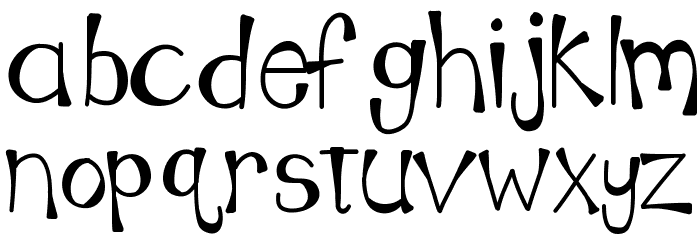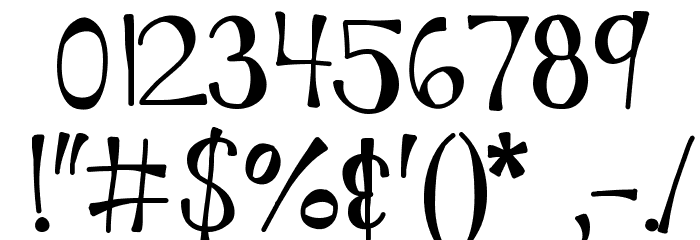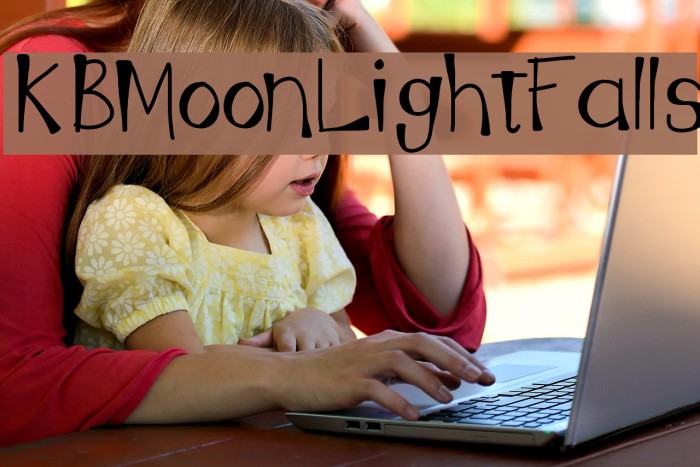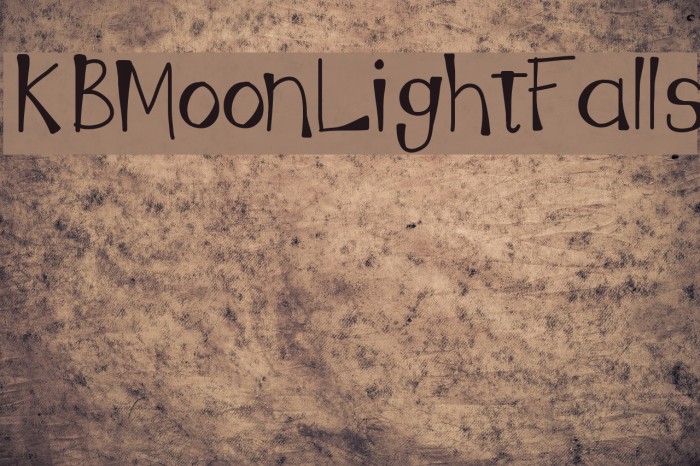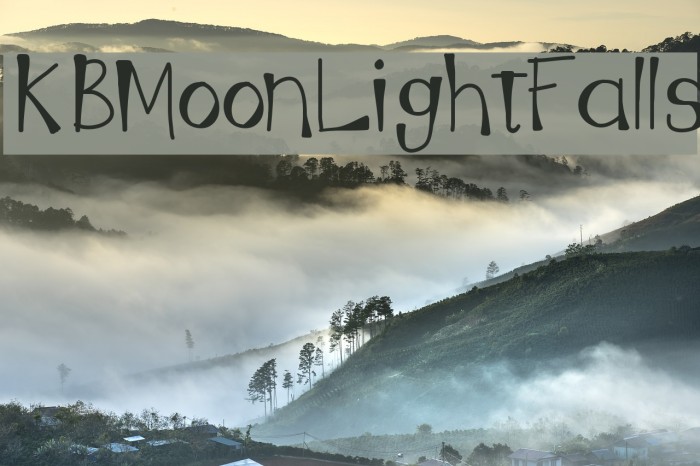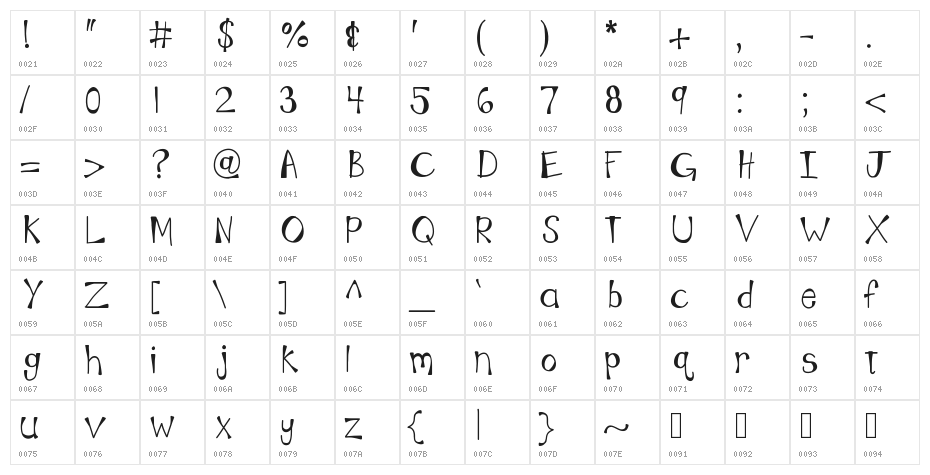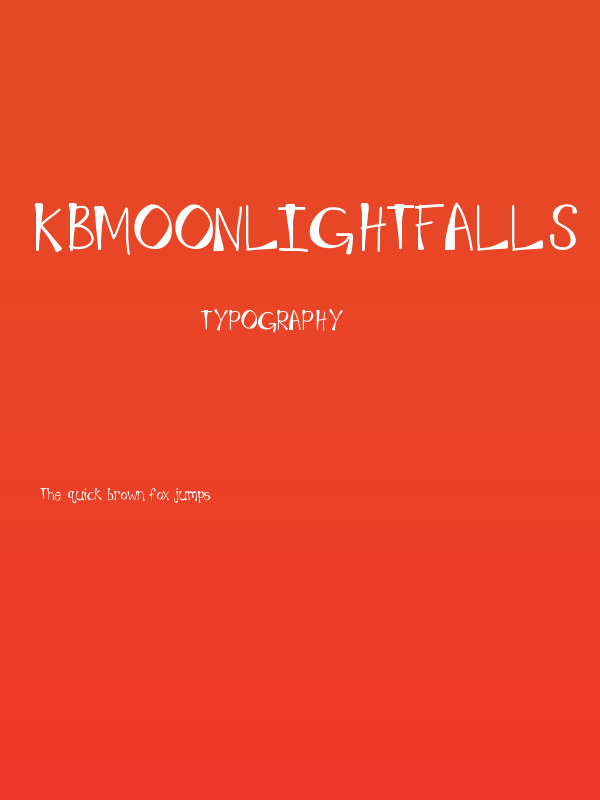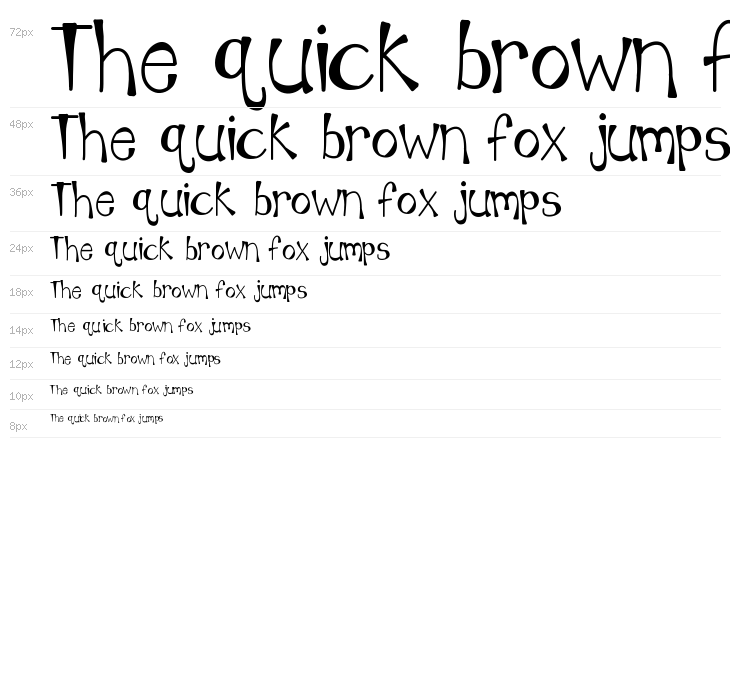
KBMoonLightFalls Font
This playful and whimsical font features a hand-drawn aesthetic with irregular strokes and a casual, informal style. The uppercase letters are bold and slightly uneven, giving a sense of movement and energy. The lowercase letters maintain this lively character with varying heights and widths, adding to the font's dynamic appearance. Numbers and special characters follow the same playful design, making them stand out with their unique shapes. The overall look is reminiscent of a child's handwriting, making it perfect for projects that require a fun and approachable feel.
A playful, hand-drawn font with a whimsical and informal style.
- Proposed Projects: Ideal for children's books, playful branding, greeting cards, and creative posters.
- Overall Style: Whimsical
- Use Case: Headlines, Logos, Creative projects